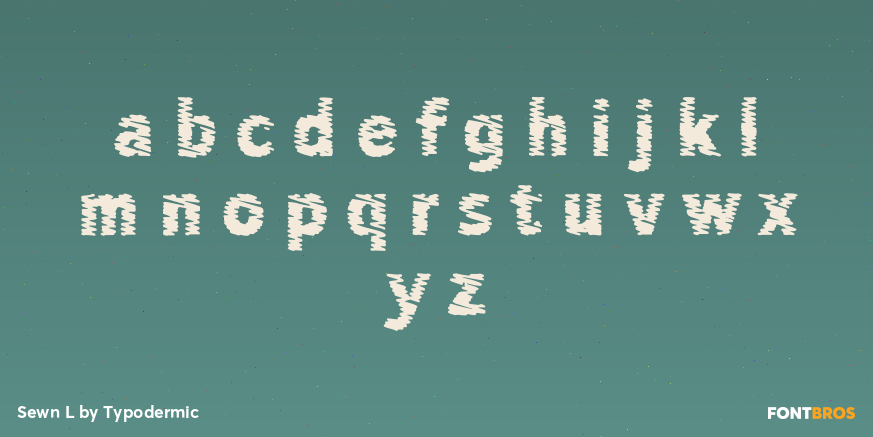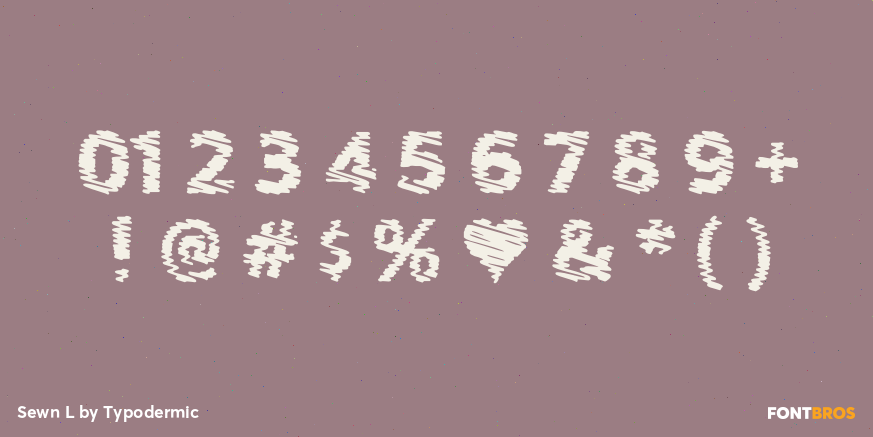
Sewn L
Buy NowSewn L increases the density of the drawn thread pattern for large display settings. At equal type size, its marks are narrower and more closely articulated than those in Sewn M, allowing more of the overlapping, back-and-forth stitch construction to appear inside each letter. That extra detail gives large words a richer embroidered surface without merely enlarging a coarse texture.
Use Sewn L for apparel launch headlines, team-store graphics, lookbook titles, large posters, retail displays, clubhouse signage, and merchandise-drop campaigns. Give it enough size and contrast for the individual thread turns to remain visible. Choose S or M when the same identity moves into compact packaging or thumbnails, and reserve XL for oversized applications that can support the finest version of the pattern. Sewn L simulates stitching visually; it is not embroidery-machine data.